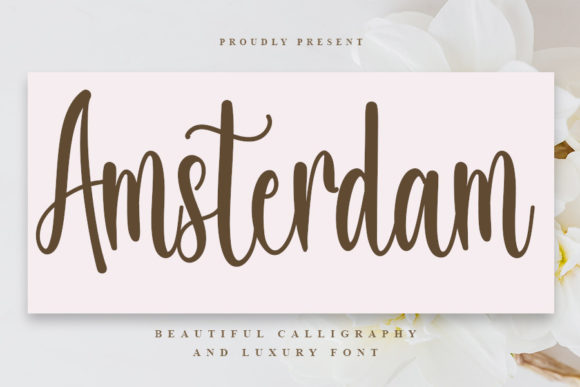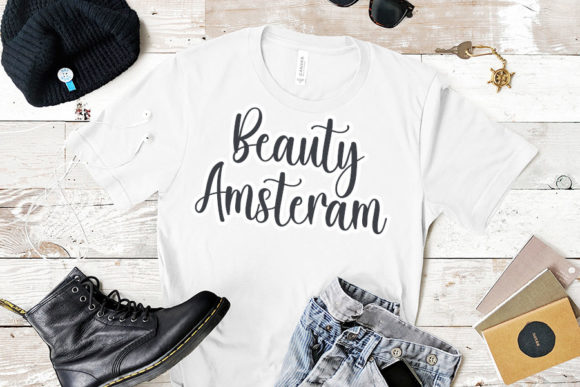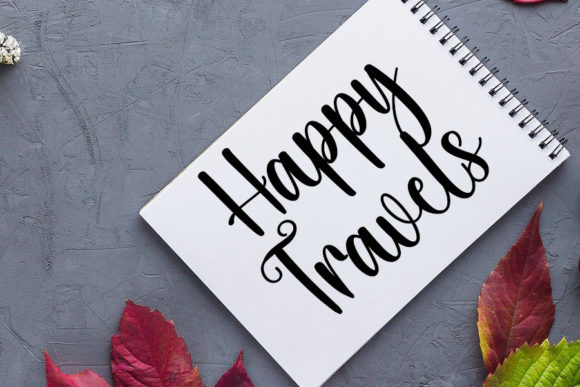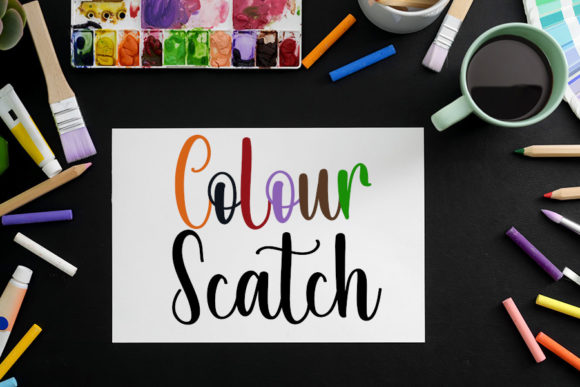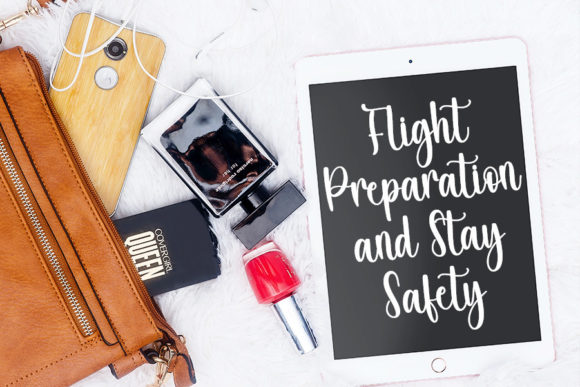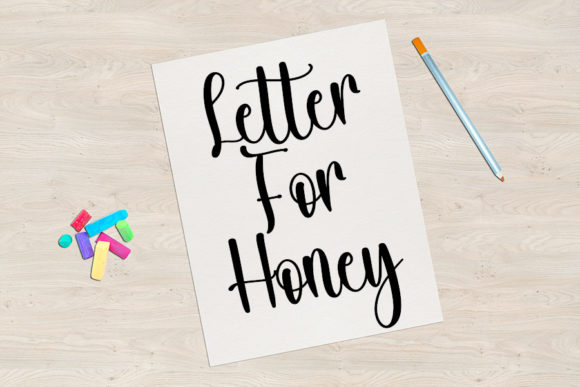
Amsterdam Font
About Amsterdam Font
Amsterdam is a ravishing handwritten font, masterfully designed to become a true favorite. It maintains its classy calligraphic influences while feeling contemporary and fresh.